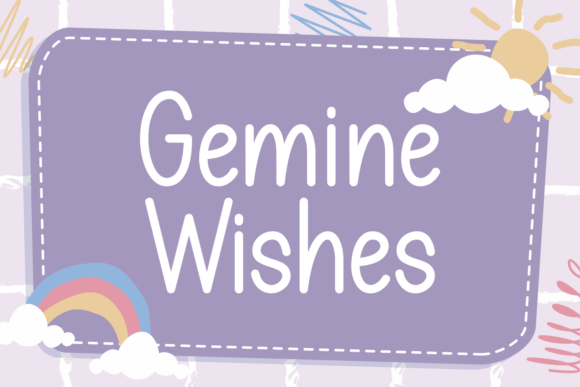
Introducing Gemine Wishes Font: The Perfect Choice for Warm and Inviting Designs
Are you looking for a font that can add a personal touch to your designs? Do you want to create invitations, greeting cards, or creative projects that exude warmth and charm? Look no further than Gemine Wishes Font, a casual handwritten font that is sure to become your go-to choice for all your design needs.
What is Gemine Wishes Font?
Gemine Wishes Font is a beautifully crafted handwritten font that is designed to bring a relaxed, heartfelt vibe to any design. Its smooth, flowing strokes and playful letterforms give it a friendly, personal touch that is perfect for a wide range of applications. Whether you’re creating invitations, greeting cards, or social media graphics, Gemine Wishes Font is the perfect choice for adding a touch of warmth and personality to your designs.
Characteristics of Gemine Wishes Font
So, what makes Gemine Wishes Font so special? Here are just a few of its key characteristics:
- Smooth, flowing strokes: Gemine Wishes Font features smooth, flowing strokes that give it a natural, handwritten feel.
- Playful letterforms: The font’s playful letterforms add a touch of whimsy and personality to any design.
- Warm and inviting: Gemine Wishes Font is designed to evoke a sense of warmth and invitation, making it perfect for designs that need to feel friendly and approachable.
- Casual and relaxed: This font is perfect for designs that need to feel casual and relaxed, such as social media graphics, blog posts, and more.
Uses for Gemine Wishes Font
Gemine Wishes Font is a versatile font that can be used for a wide range of applications. Here are just a few ideas to get you started:
- Invitations: Use Gemine Wishes Font to create beautiful, personalized invitations for weddings, birthday parties, and other special occasions.
- Greeting cards: This font is perfect for creating greeting cards that feel warm and personal.
- Social media graphics: Add a touch of personality to your social media graphics with Gemine Wishes Font.
- Blog posts: Use this font to add a personal touch to your blog posts and make them feel more approachable.
- Creative projects: Gemine Wishes Font is perfect for a wide range of creative projects, from posters and flyers to brochures and more.
Why Choose Gemine Wishes Font?
So, why should you choose Gemine Wishes Font for your next design project? Here are just a few reasons:
- Unique and eye-catching: Gemine Wishes Font is a unique and eye-catching font that is sure to stand out from the crowd.
- Easy to read: Despite its playful, handwritten feel, Gemine Wishes Font is easy to read and understand.
- Versatile: This font can be used for a wide range of applications, from invitations and greeting cards to social media graphics and more.
- High-quality: Gemine Wishes Font is a high-quality font that is designed to look great on any device or platform.
Tips for Using Gemine Wishes Font
Here are a few tips for getting the most out of Gemine Wishes Font:
- Use it for headings and titles: Gemine Wishes Font is perfect for headings and titles, where its playful, handwritten feel can really shine.
- Pair it with other fonts: Try pairing Gemine Wishes Font with other fonts to create a unique and eye-catching look.
- Experiment with different sizes and colors: Don’t be afraid to experiment with different sizes and colors of Gemine Wishes Font to find the perfect look for your design.
In conclusion, Gemine Wishes Font is a beautiful, versatile font that is perfect for adding a touch of warmth and personality to any design. Its smooth, flowing strokes and playful letterforms make it a great choice for invitations, greeting cards, social media graphics, and more. Whether you’re a designer, a DIY enthusiast, or just someone who loves to create, Gemine Wishes Font is a great addition to your font library.